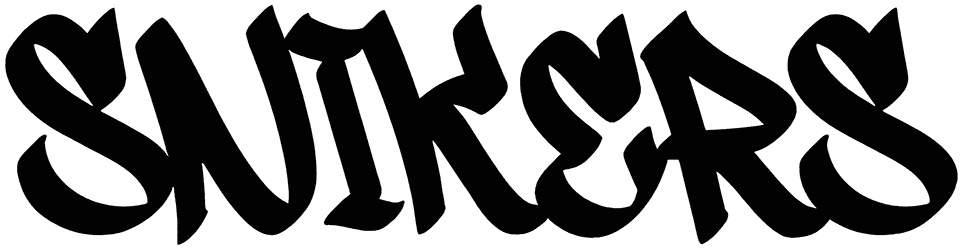
Street Writer Font
Choosing the right font for designing content such as video game posters, stickers, or digital banners may be a little difficult for novice graphic designers, but a script font like Street Writer can solve all the problems.
This font that is designed in graffiti style does not support lowercase letters, also it doesn’t have good readability. By using this font, you can convey a sense of courage, excitement, grunge, and clutter to your audience.